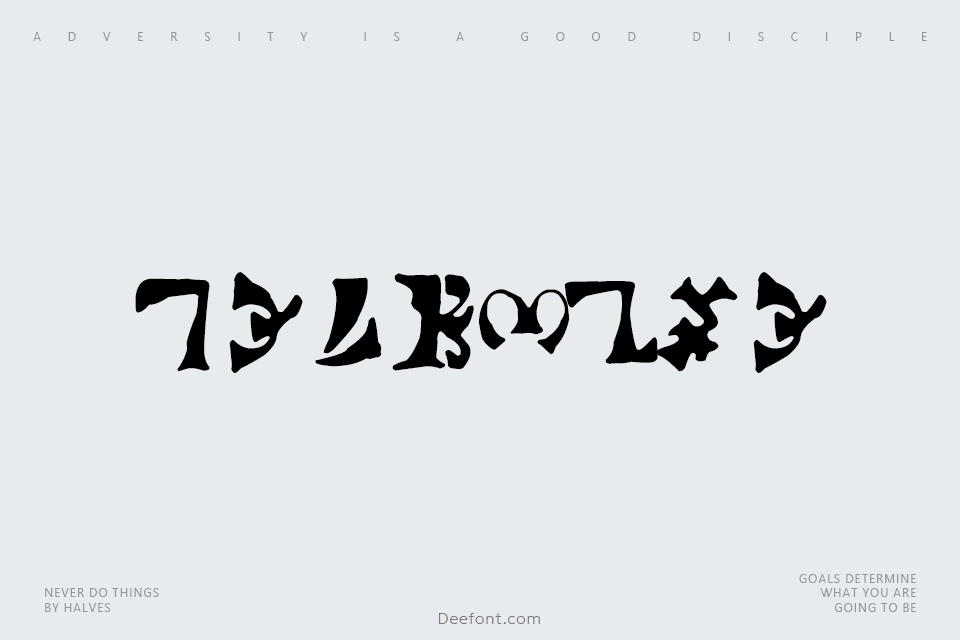
Enochian Font
Enochian Font is a mystical dingbats typeface inspired by the occult language recorded by John Dee and Edward Kelley in 16th-century England. This distinctive font features angular and organic glyphs that resemble ancient runes and enigmatic symbols, blending sharp lines with rounded curves to evoke both strength and mystery. Perfect for esoteric projects, secret designs, and creative applications seeking arcane power, Enochian Font comprises 23 glyphs that capture the essence of celestial communication with their powerful and subtly elegant character forms.